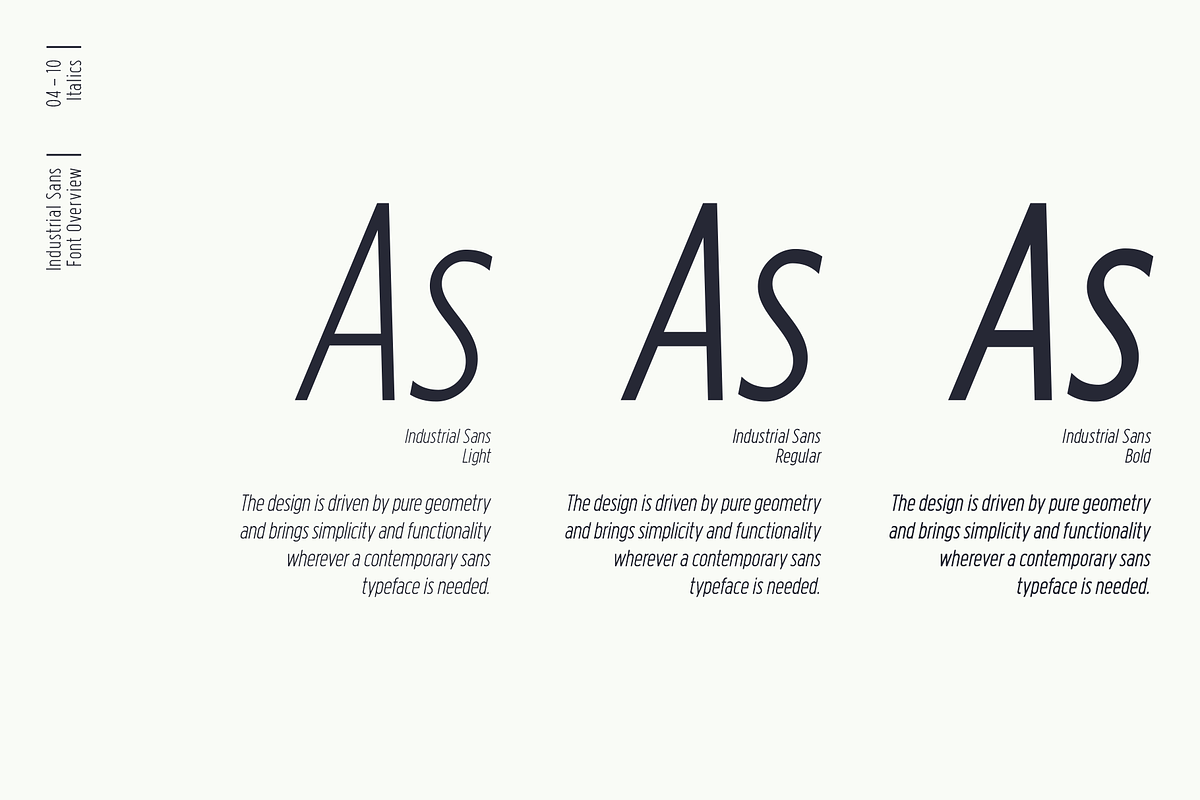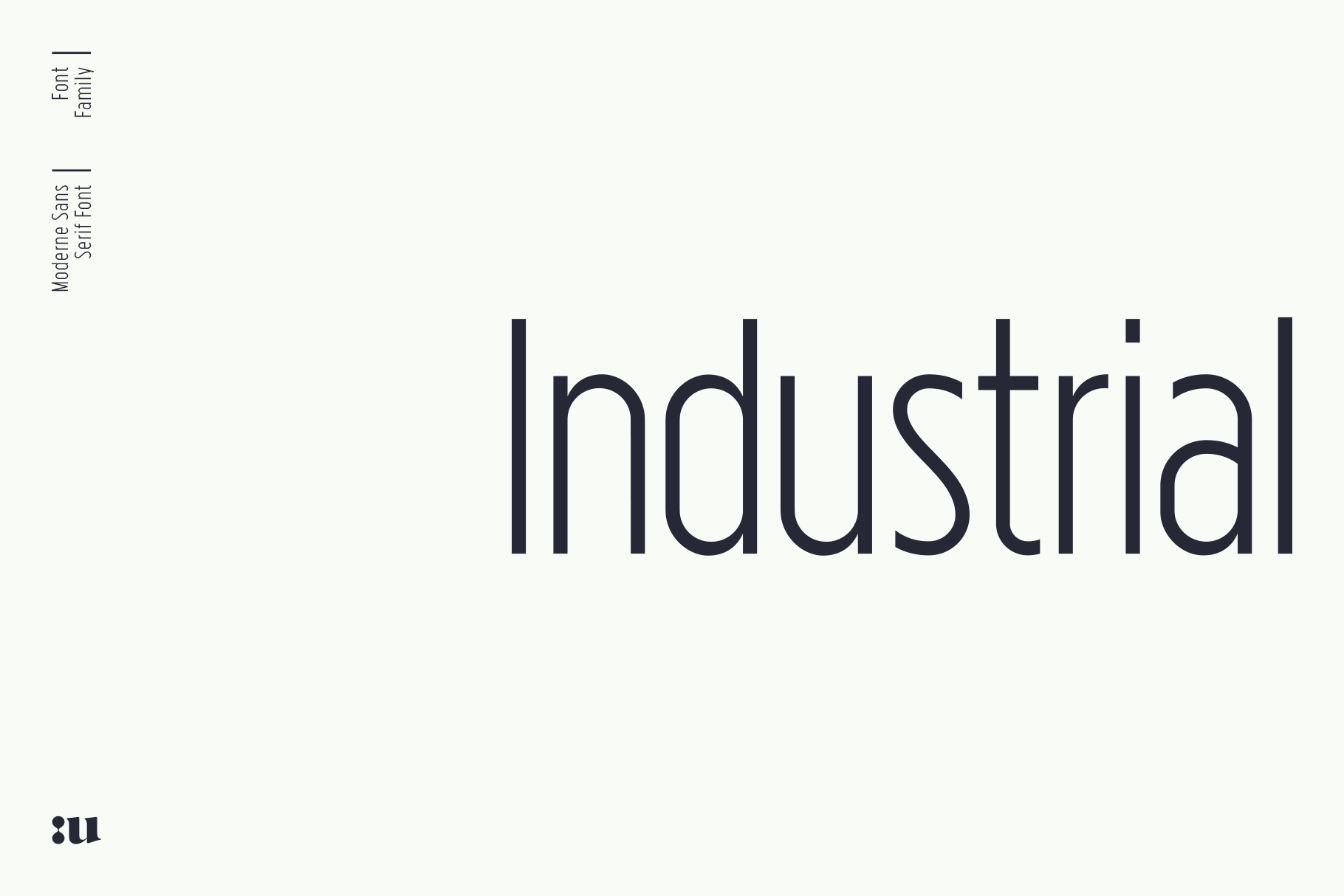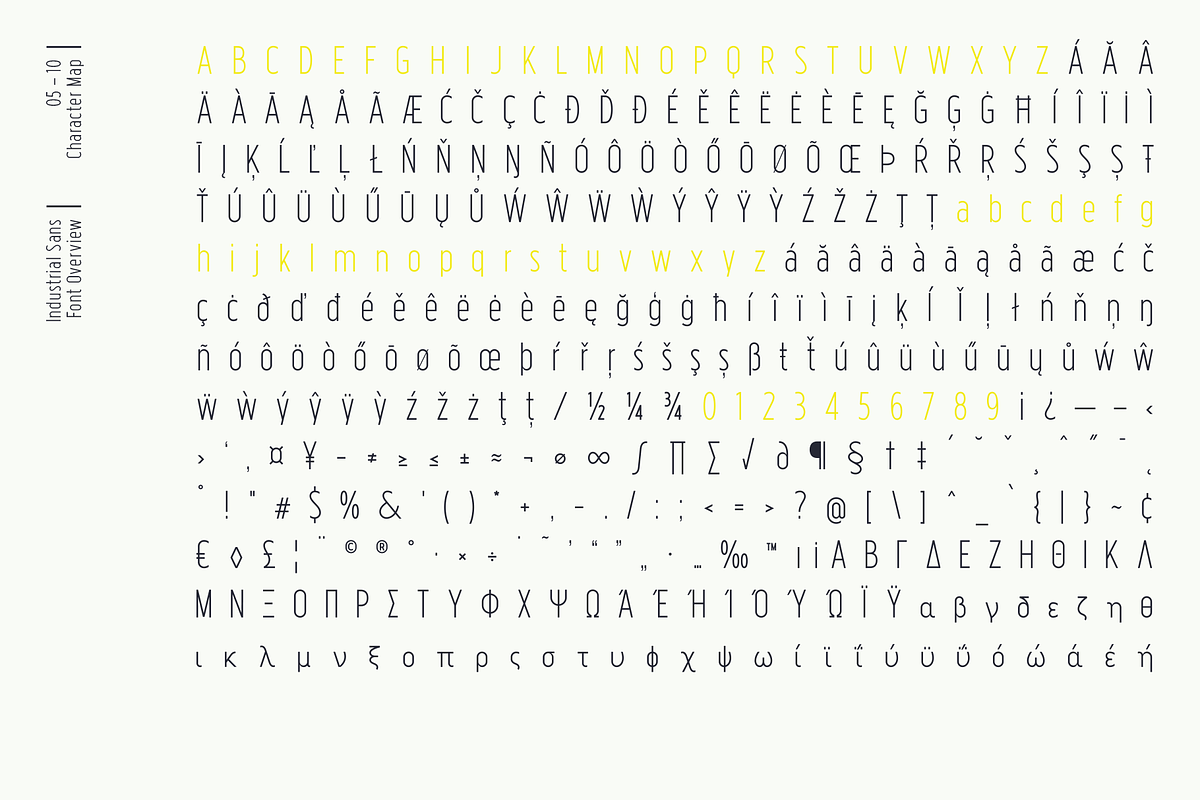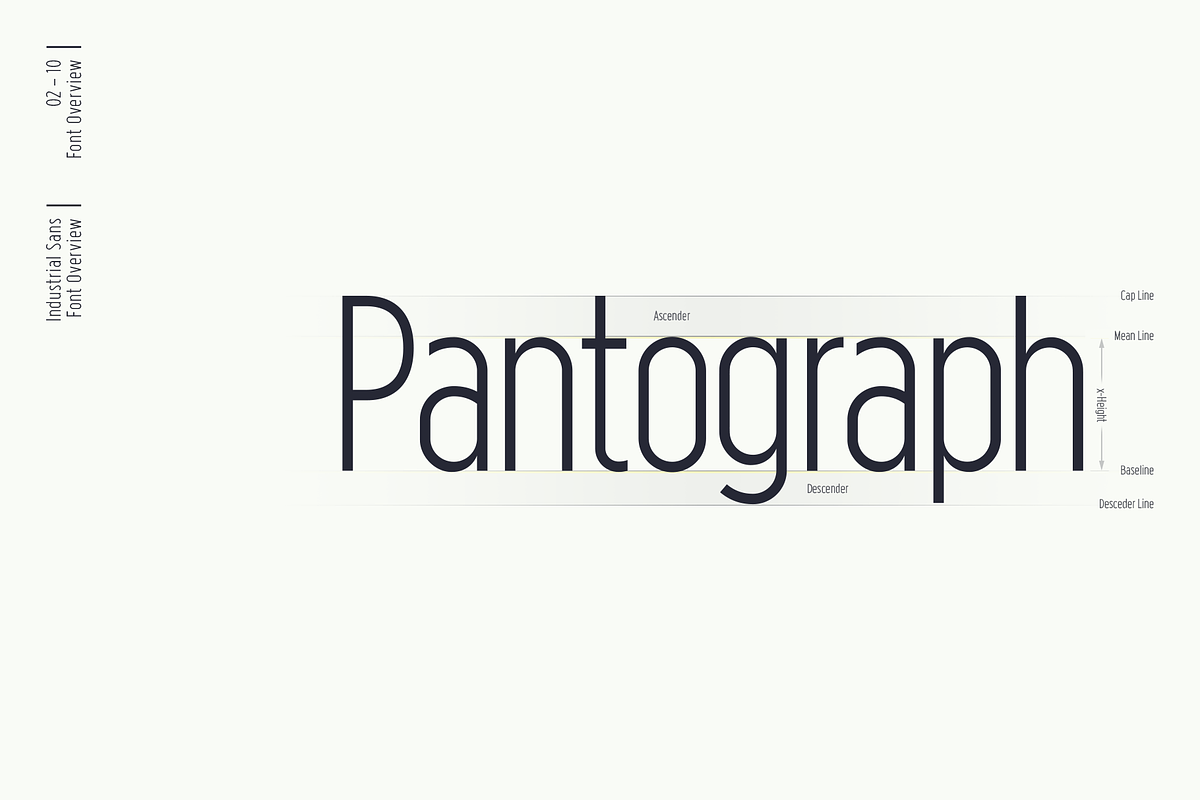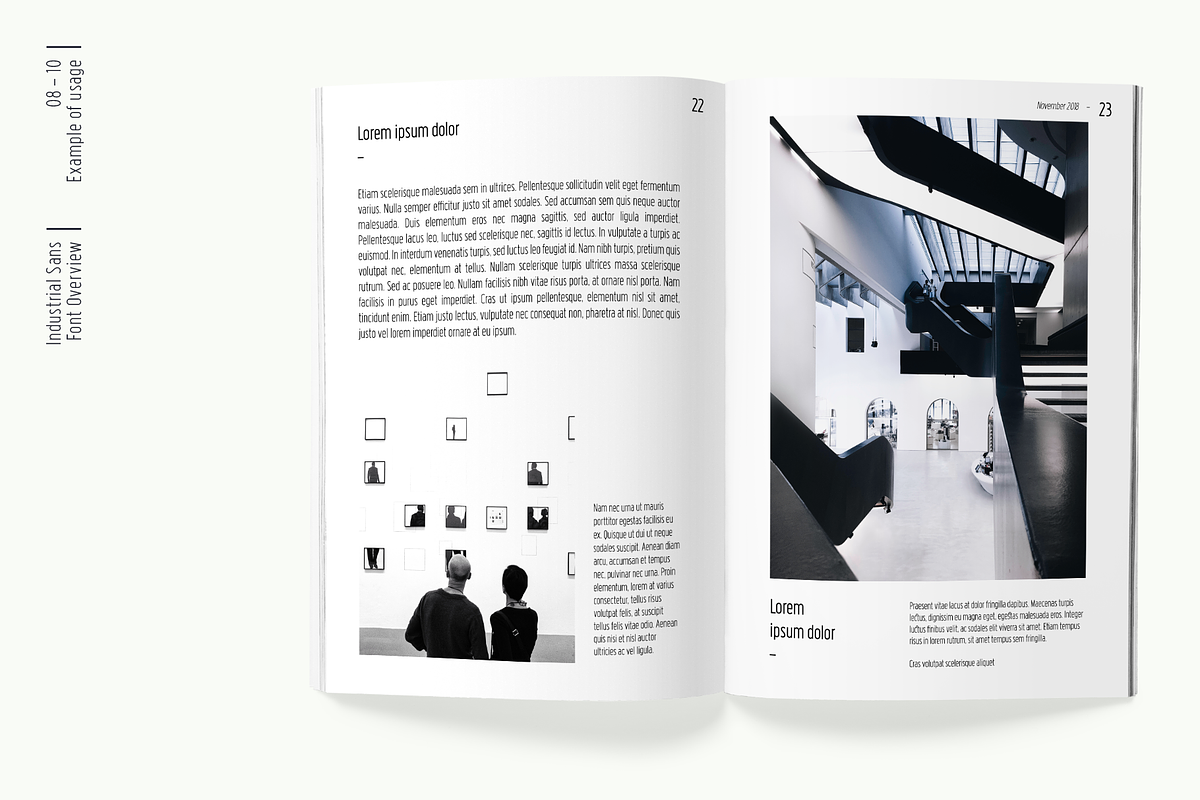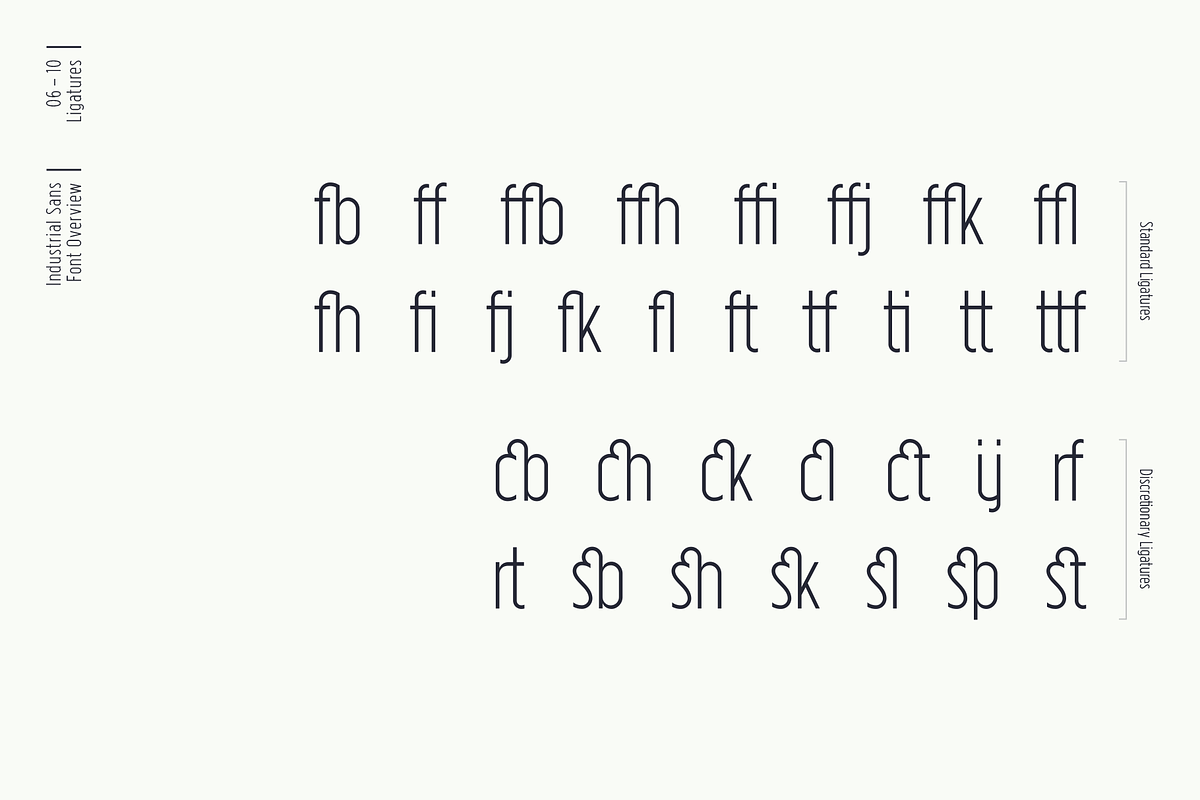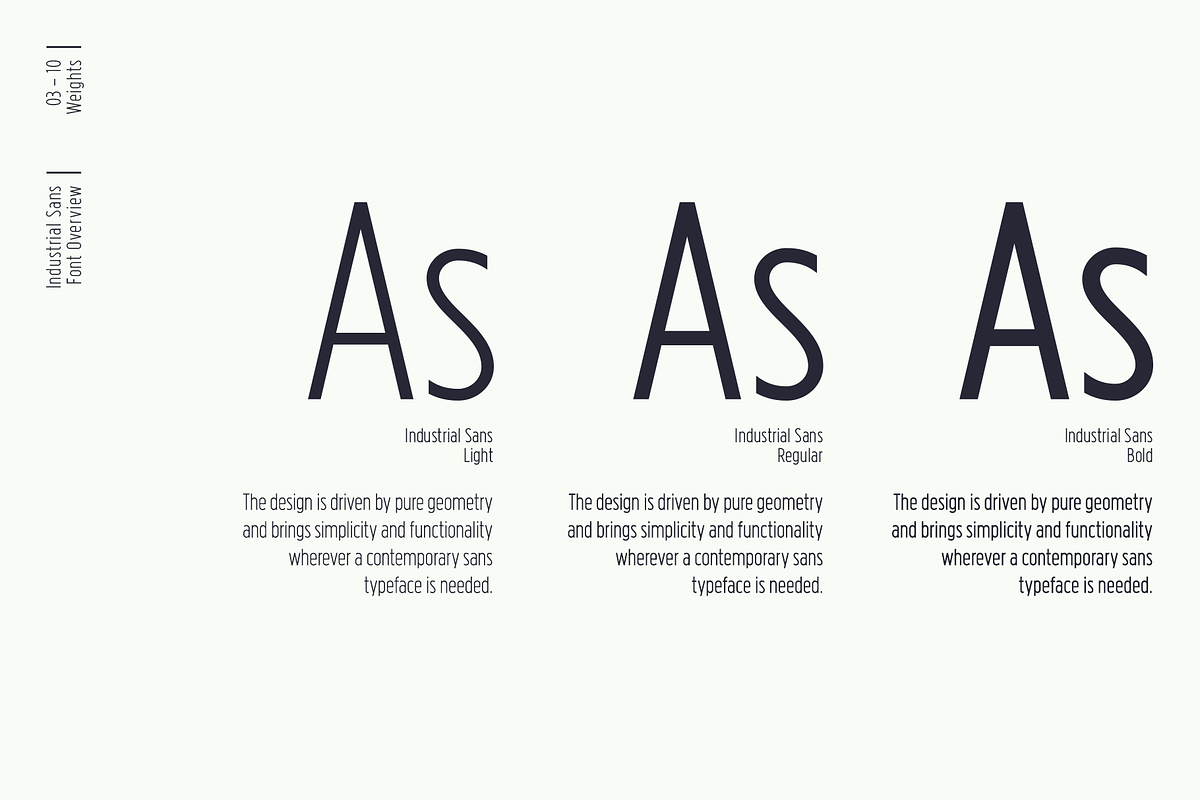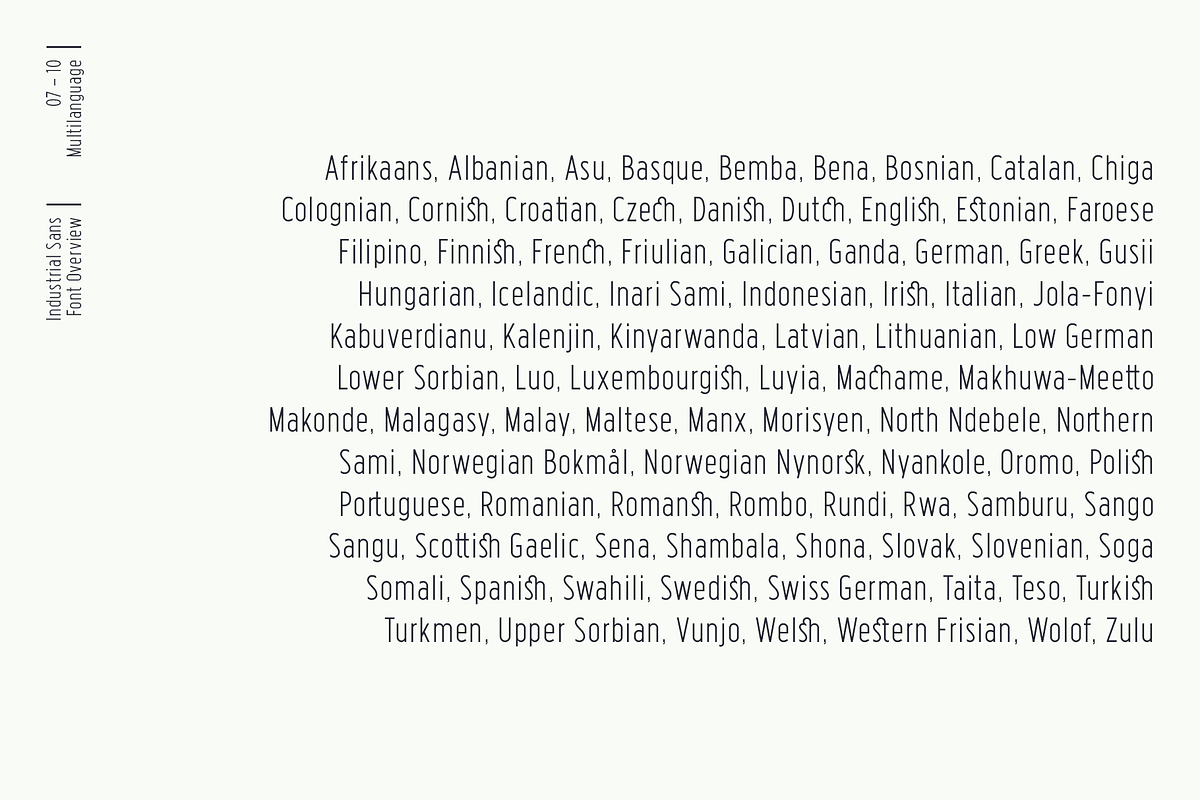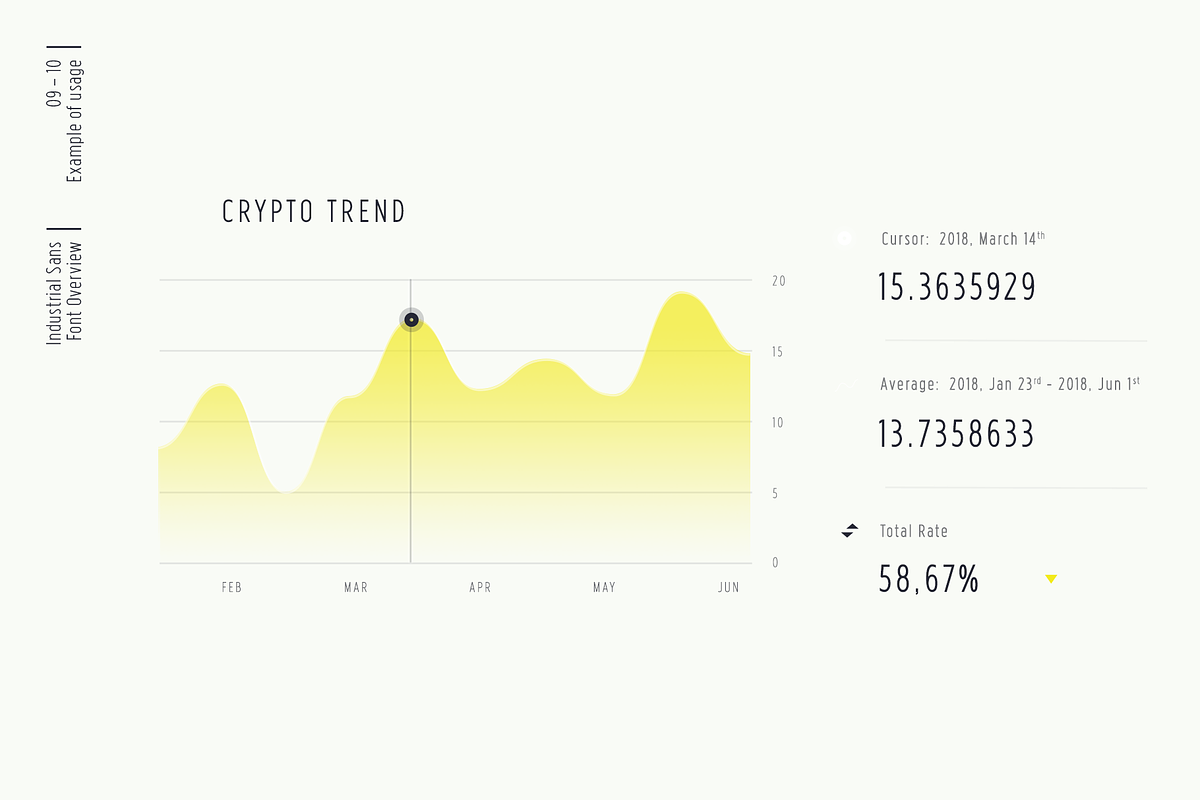
Industrial Sans Typeface
Industrial is a visual contemporary sans serif typeface composed of three weights plus their matching obliques.
The “Industrial design” creates and develops concepts and specifications that optimize the function, value and appearance of products. Indeed, this is reflected in the concept behind each glyph of our font family which geometry has required a particular attention for the purpose to preserve optical exactness, along with proportions continuity. The whole design of this typeface is in fact ruled by versatility and legibility and makes it functional for any text in small and large sizes.
Industrial typeface includes over 450 characters with coverage for several languages using latin alphabet as well as the Greek alphabet. The font family provides advanced typographical support such as a significant number of neat standard and discretionary ligatures and broad support of OpenType features (OTF).
Recommended for headlines, logos and any destination of use such as corporate identity, typography, posters, web design and social feeds.
Multilanguage support (Central, Eastern, Western European languages, Greek)
OpenType features (Standard and Discretionary ligatures)